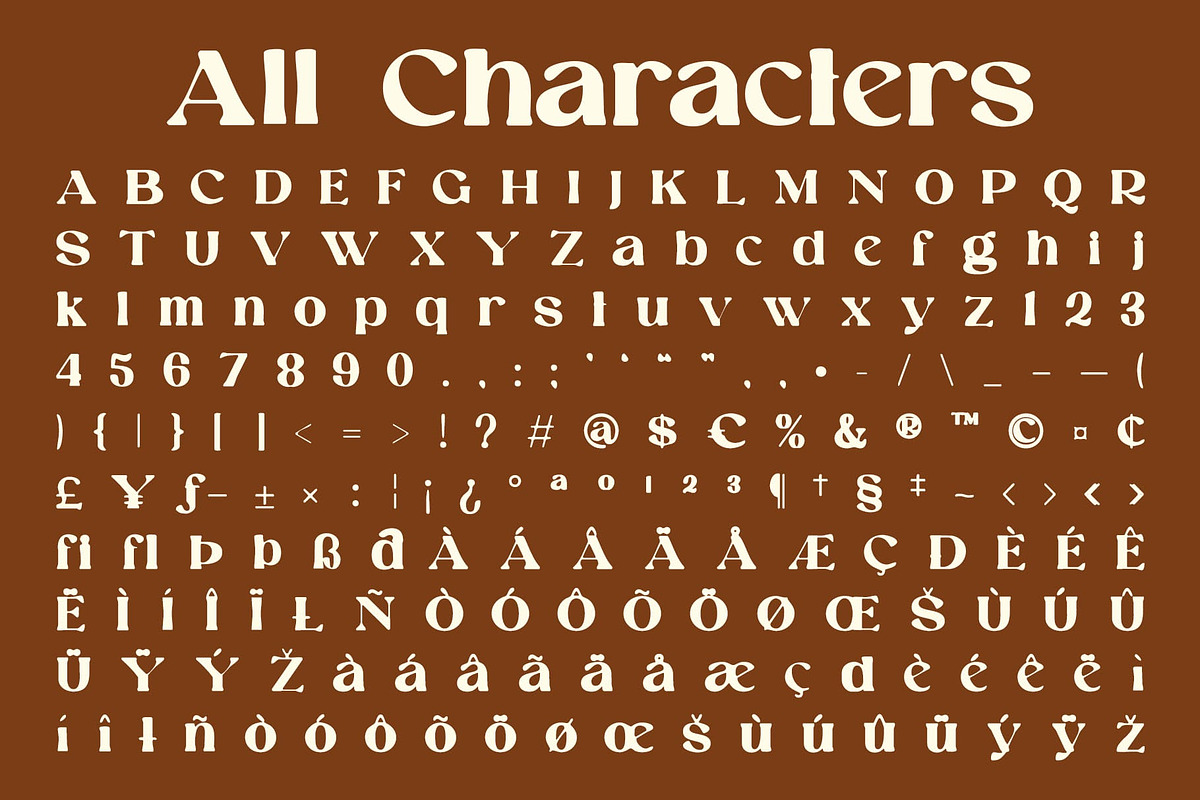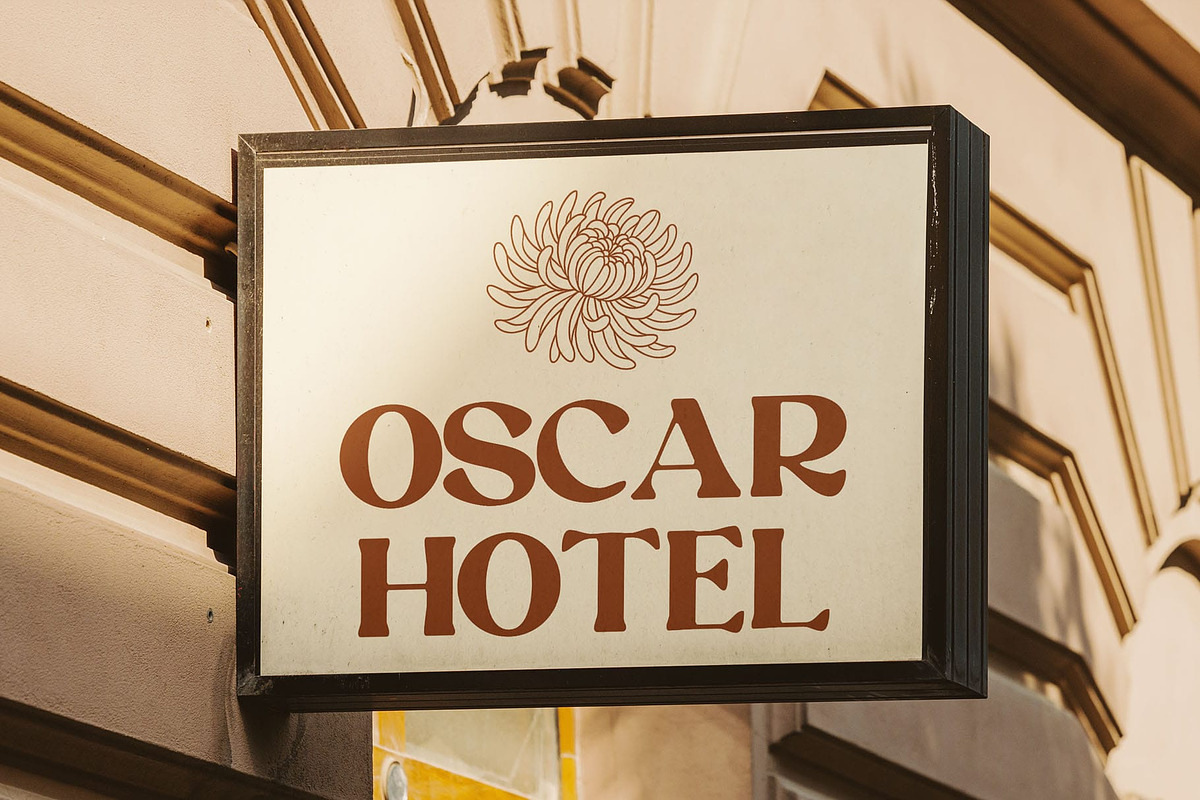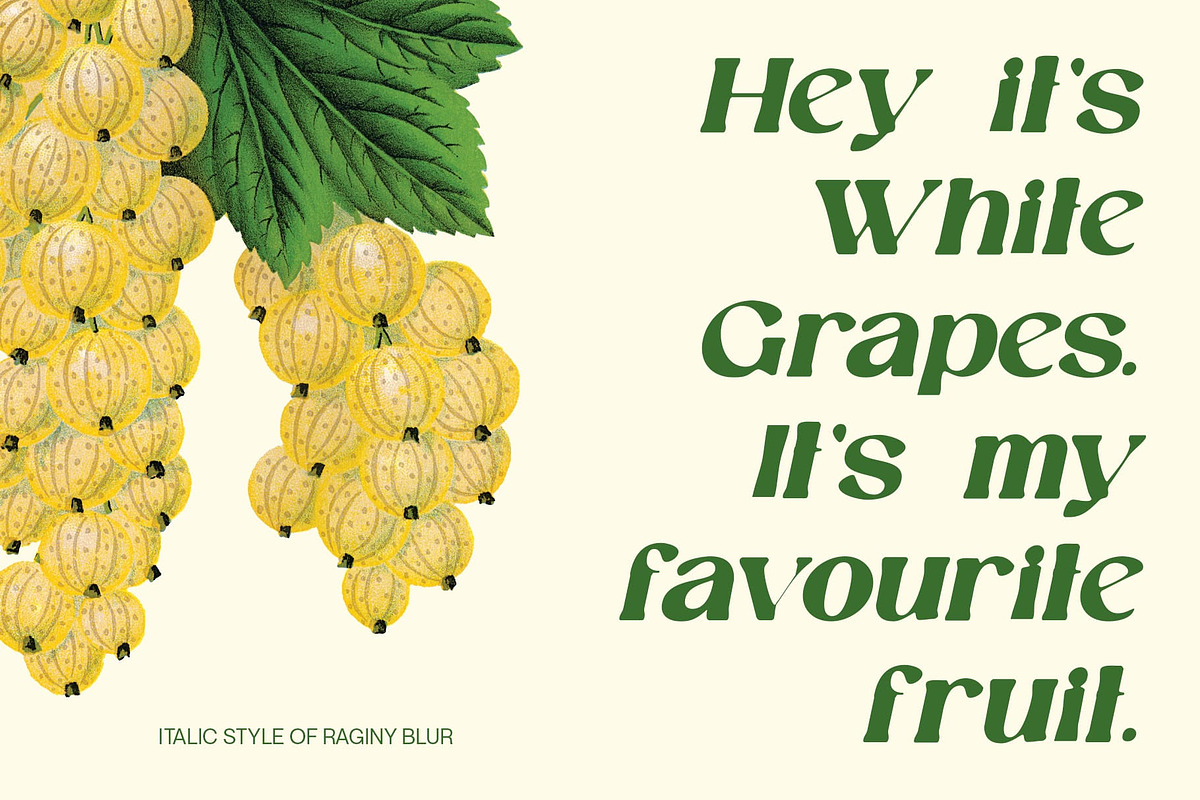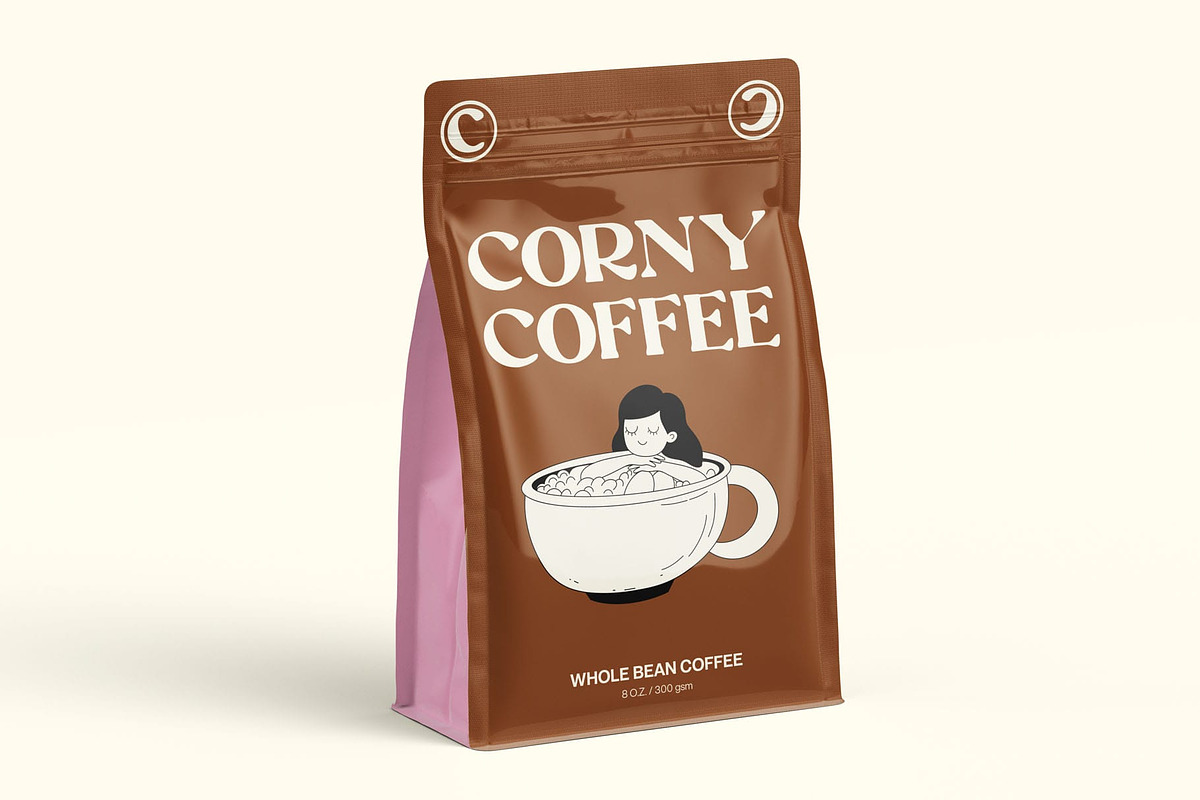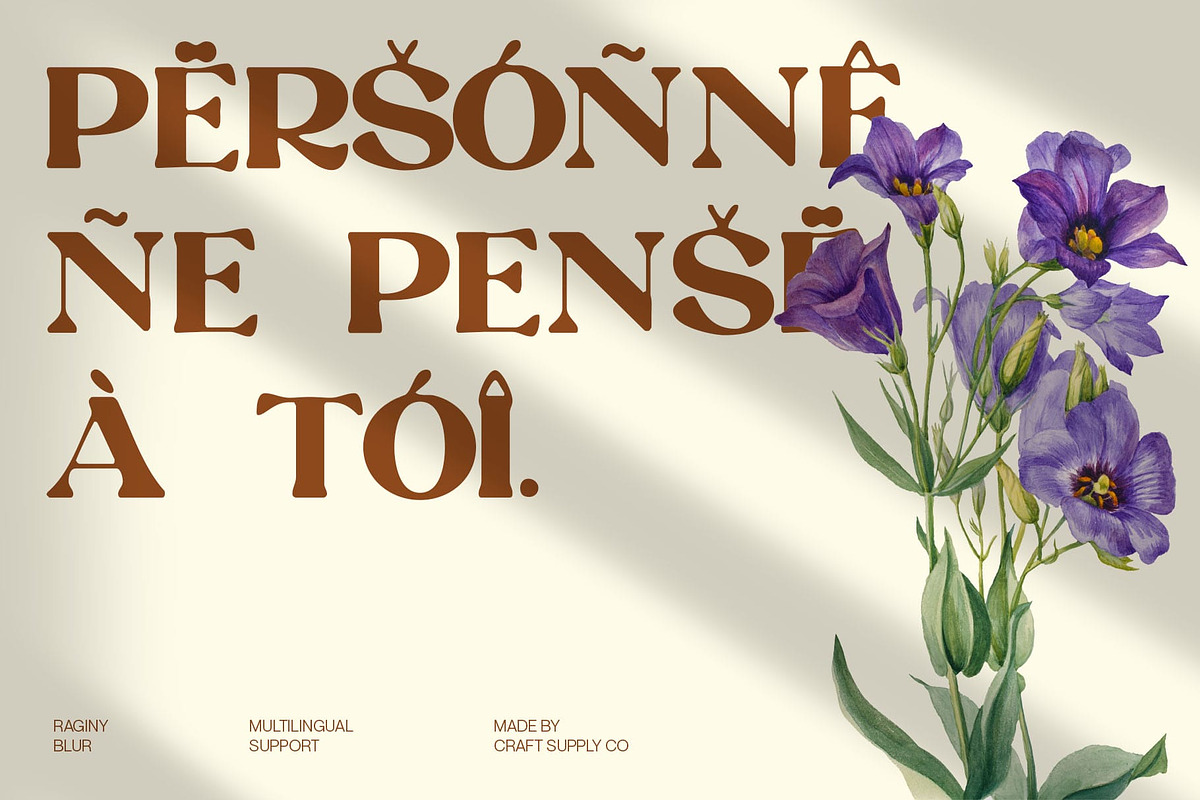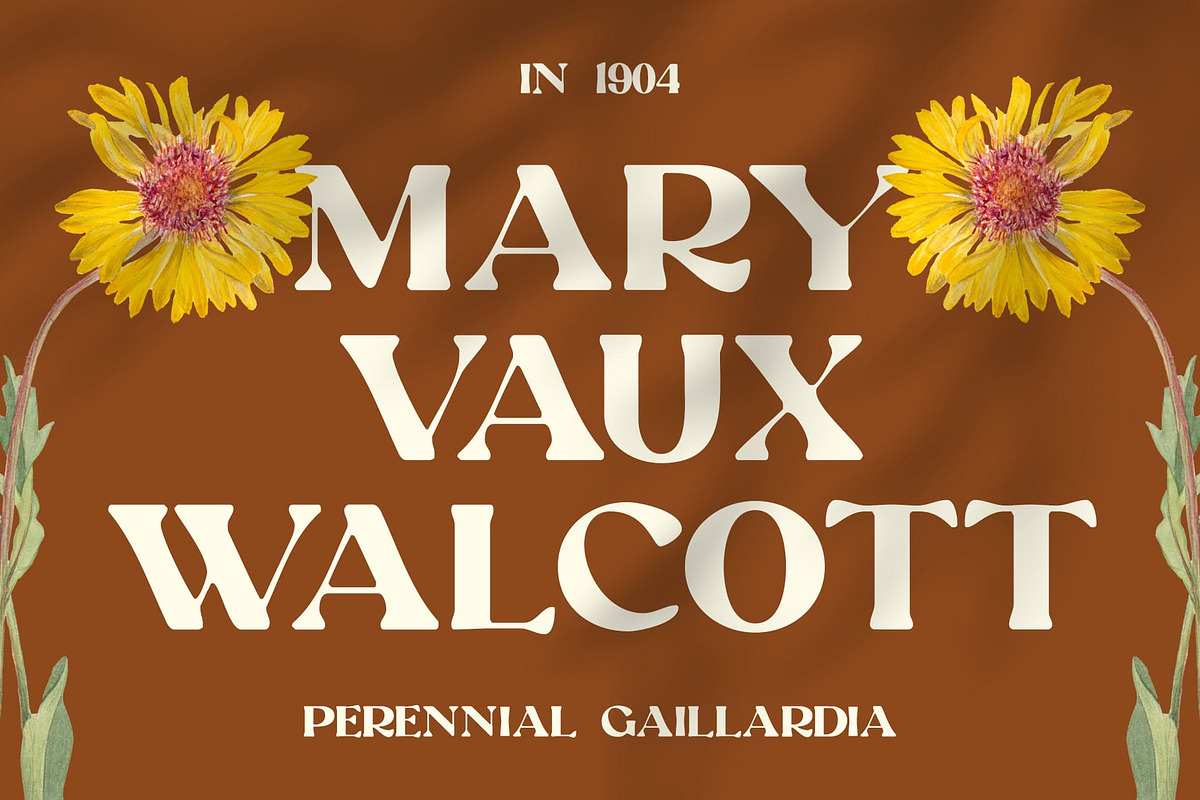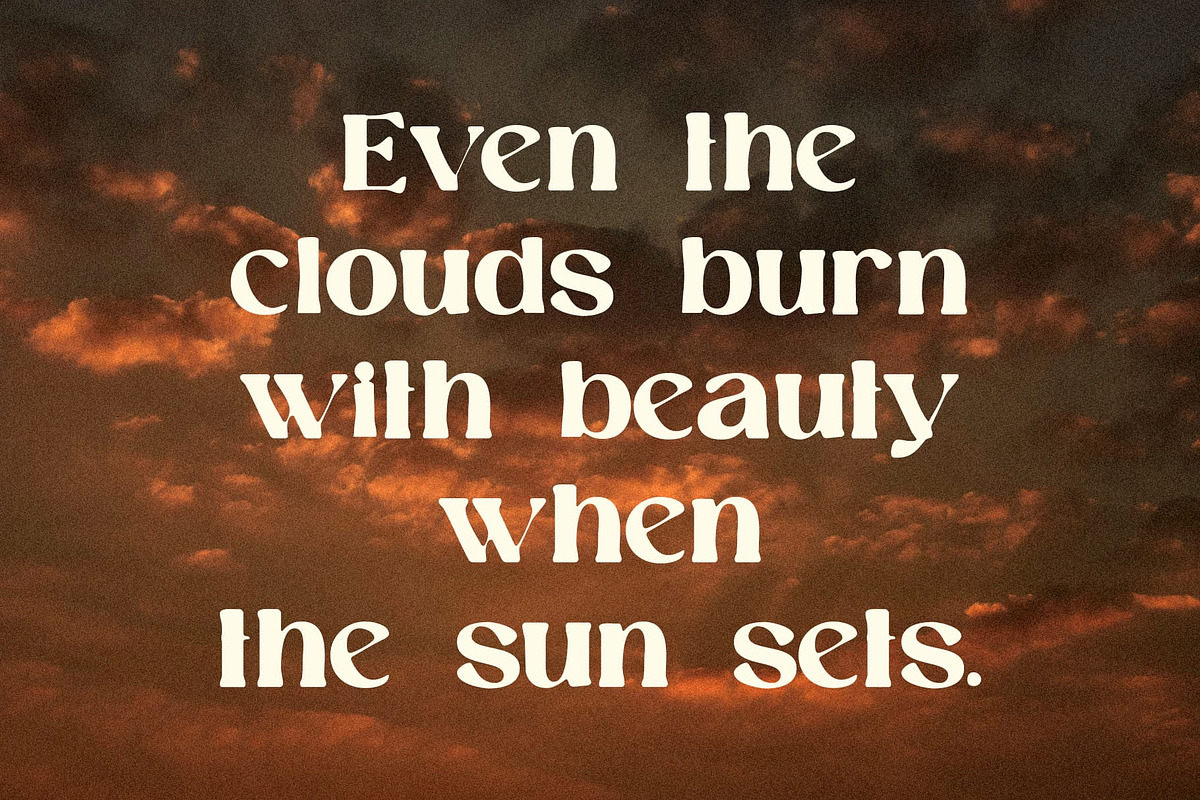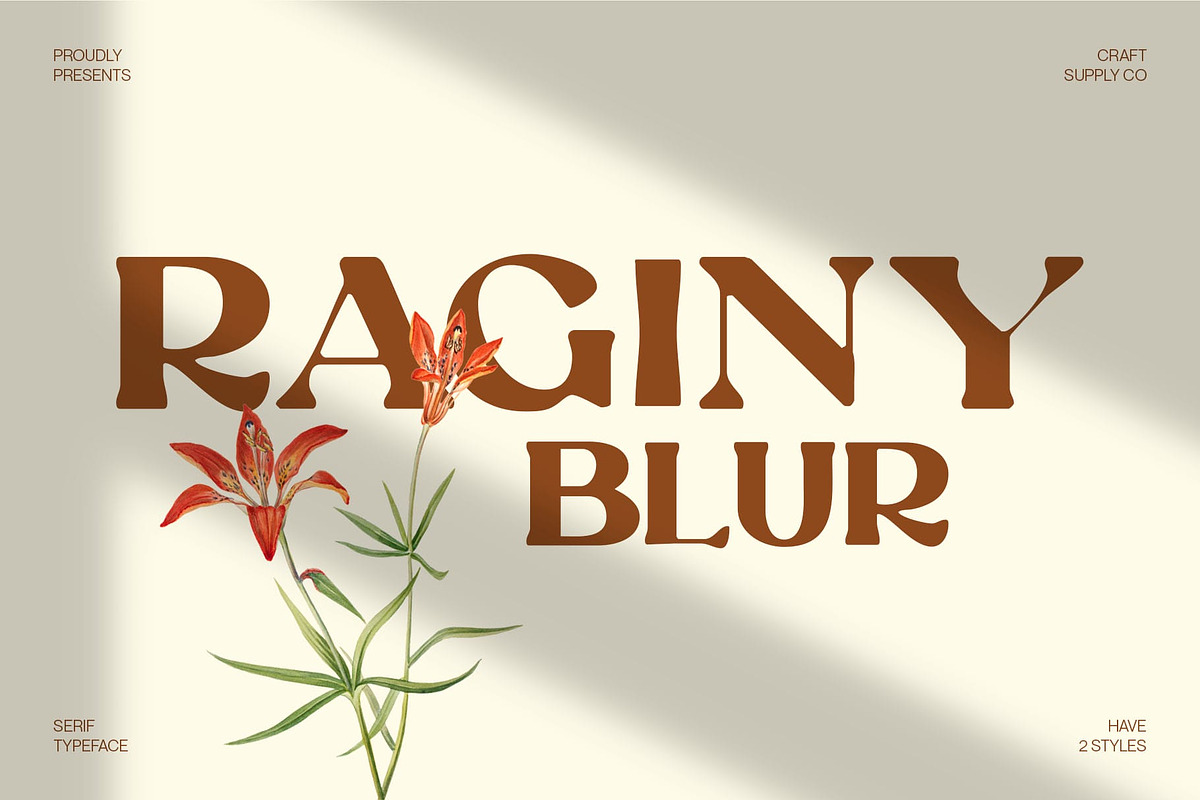
Raginy Blur
Raginy Blur Font – Elegant Serif Meets Dreamlike Expression
Refined and Stylish Serif Form Raginy Blur is a modern serif font that merges timeless elegance with a clean, contemporary aesthetic. Its slim, sharp letterforms are thoughtfully crafted, delivering a polished and professional impression.
Blur Effect for Artistic Depth What sets Raginy Blur apart is its soft blur effect, which introduces a dreamy, atmospheric quality to the typeface. This subtle distortion adds motion and texture, creating an expressive and emotive tone. The blur transforms the traditionally rigid serif into something more fluid and experimental—perfect for projects that aim to make a bold artistic statement without losing clarity.
Modern Sophistication with a Creative Edge The interplay between a clean serif base and the blurred aesthetic brings a fresh, innovative twist to high-end typography. Raginy Blur effortlessly bridges the gap between traditional elegance and contemporary artistry, making it a standout choice for designers who want to blend refinement with originality.
Ideal for High-End and Artistic Projects This contemporary font is perfectly suited for luxury branding, fashion editorials, artistic posters, digital campaigns, or product packaging that seeks a distinct and elevated identity. Its unique visual texture draws the eye and leaves a lasting impression, ideal for designs that want to feel exclusive, creative, and unmistakably stylish.
- Raginy Blur Regular
- Raginy Blur Italic